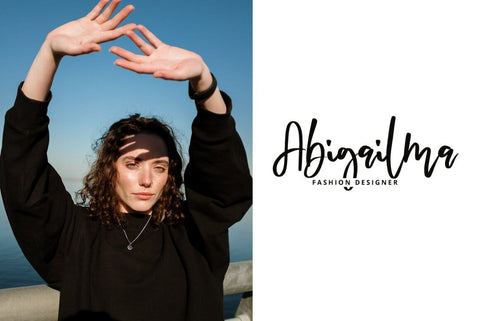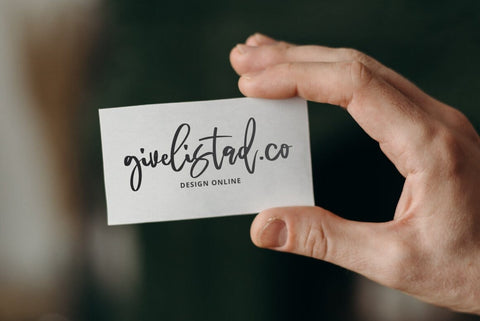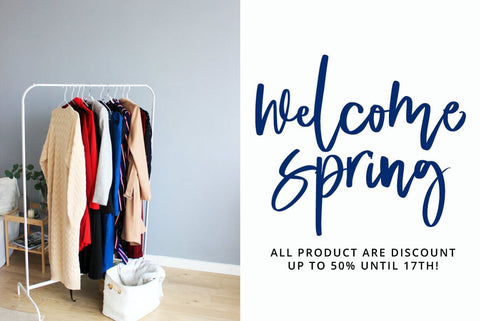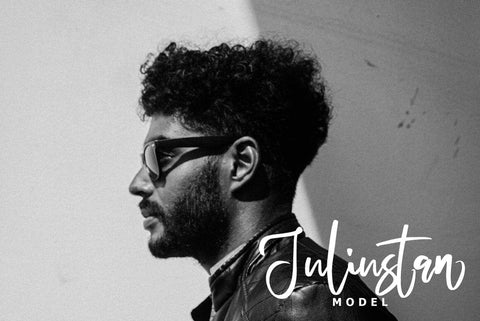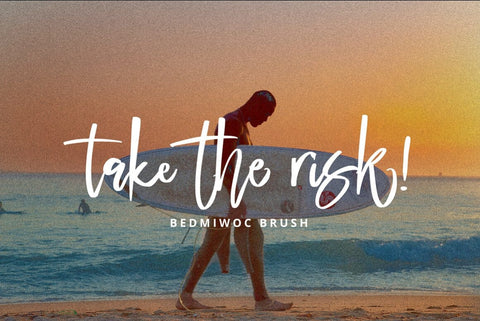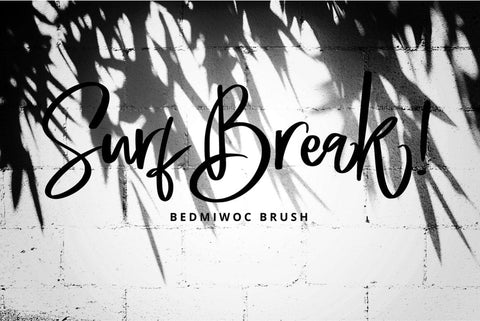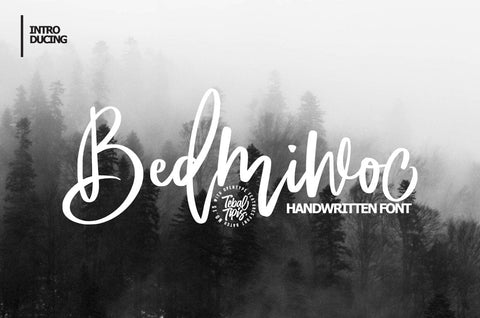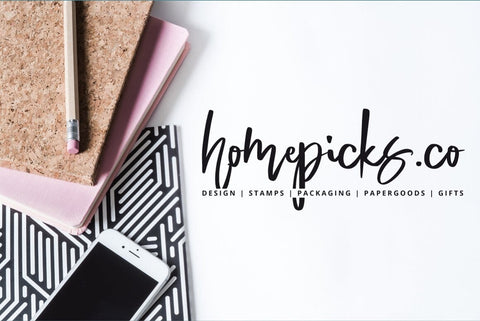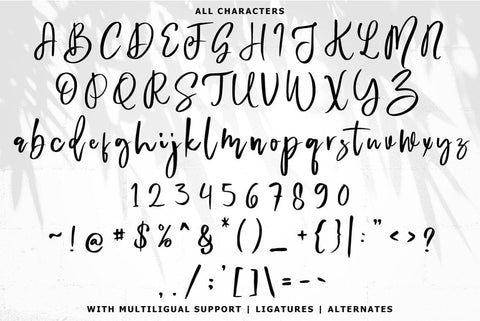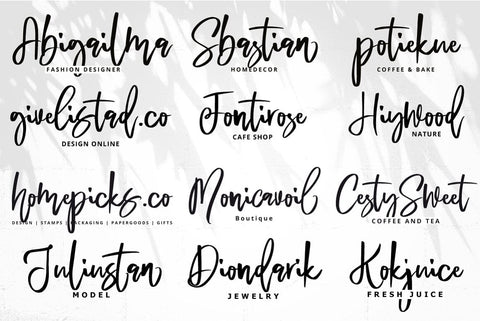
Bedmiwoc Brush Typeface
Bedmiwoc Brush is a script typeface with personality. You can use it as a logo, badge, insignia, packaging, headline, poster, etc The alternative characters in this font were divided into several OpenType features such as Stylistic Alternates, Stylistic Sets, and Ligature. The OpenType features can be accessed by using OpenType program such as Adobe Illustrator, Adobe Photoshop, and Adobe InDesign.